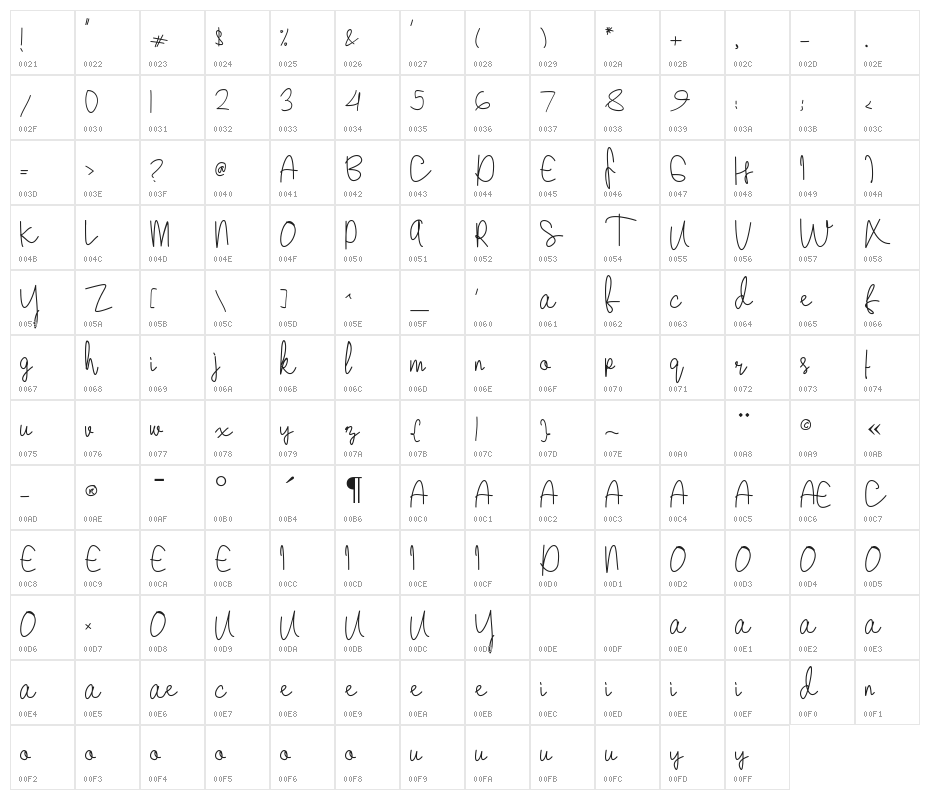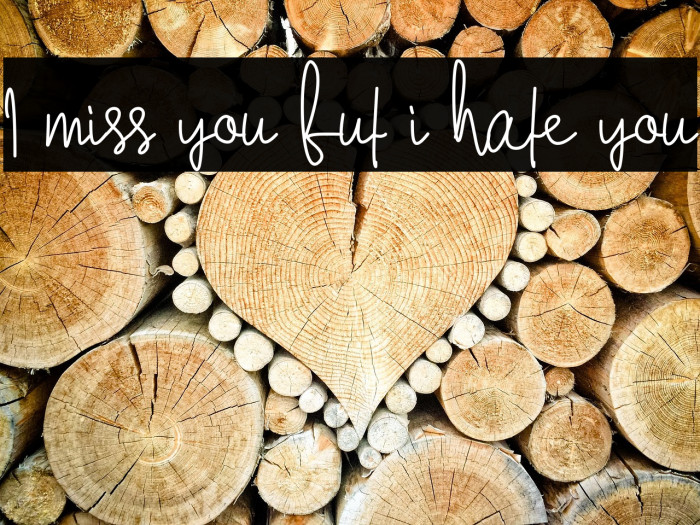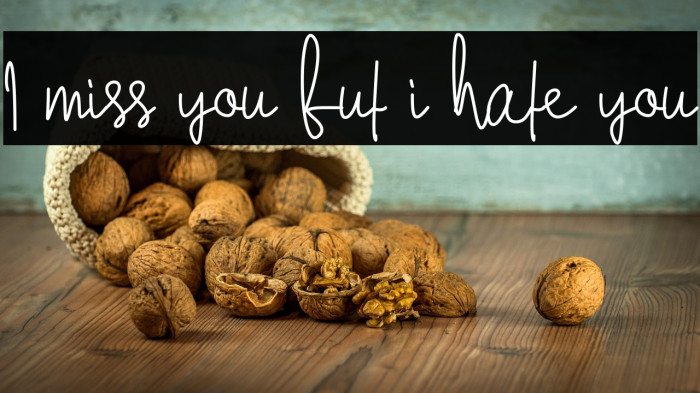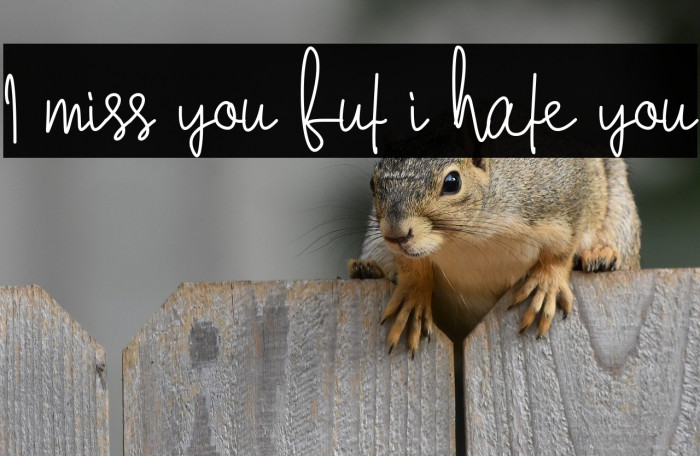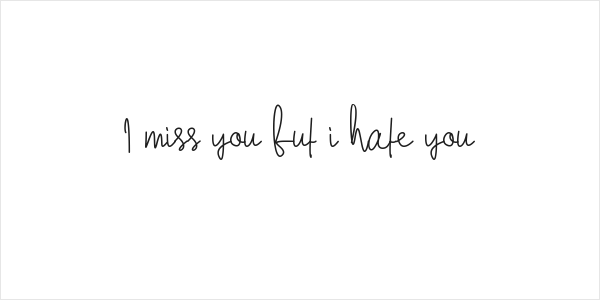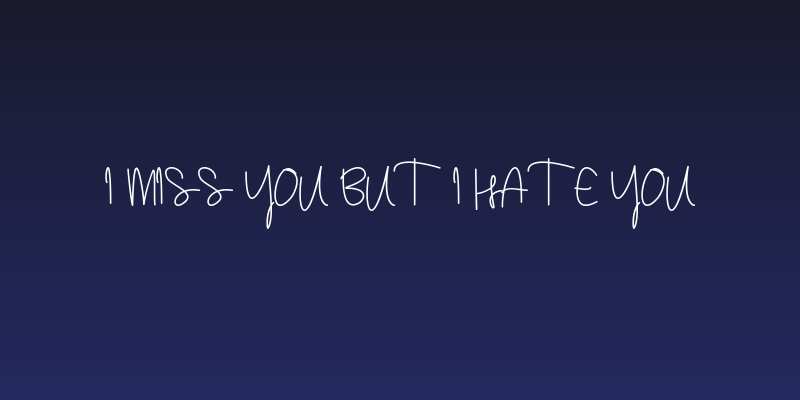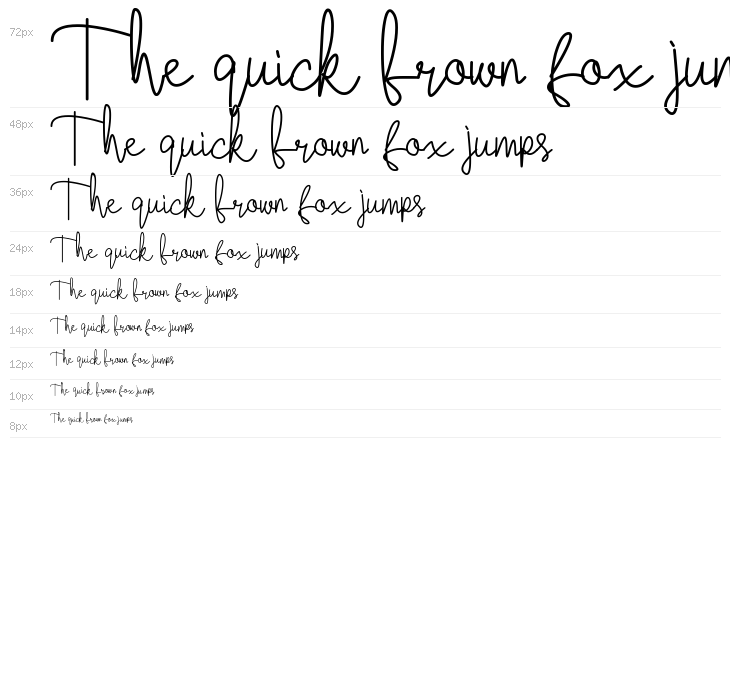
I miss you but i hate you Font
I miss you but i hate you Description
This font exhibits a playful and casual handwritten style, characterized by its fluid and organic letterforms. The uppercase letters are tall and slightly narrow, with a whimsical flair that adds a touch of personality. The lowercase letters maintain a consistent flow, with some characters featuring loops and curves that enhance the handwritten aesthetic. Numbers are clear and easy to read, while special characters blend seamlessly with the overall style. The strokes are consistent in width, providing a balanced and harmonious appearance. This font is ideal for projects that require a personal and informal touch, such as greeting cards, invitations, or social media graphics.
| Use Case | Headlines, Personal projects, Informal communications |
| Proposed Projects | Ideal for greeting cards, invitations, social media graphics, and personal branding. |